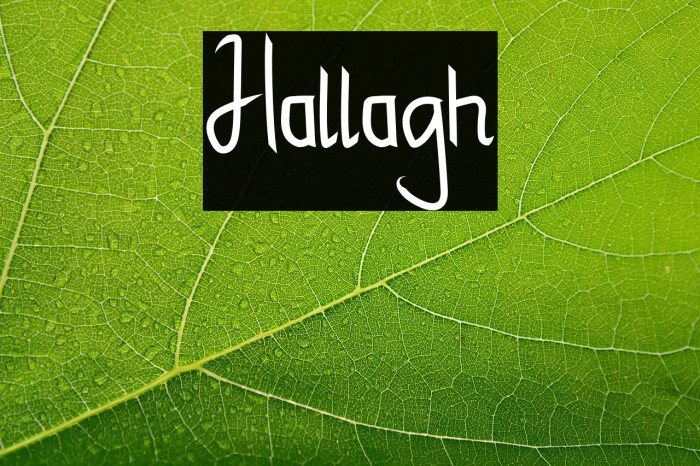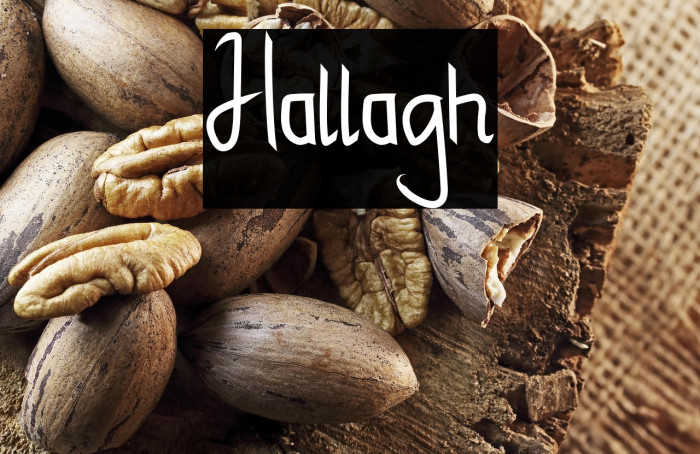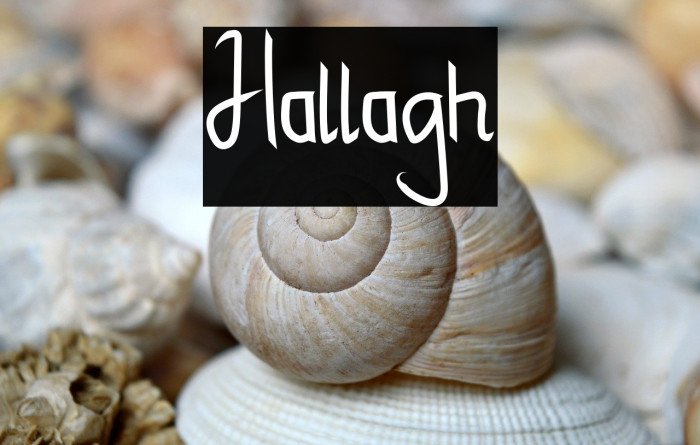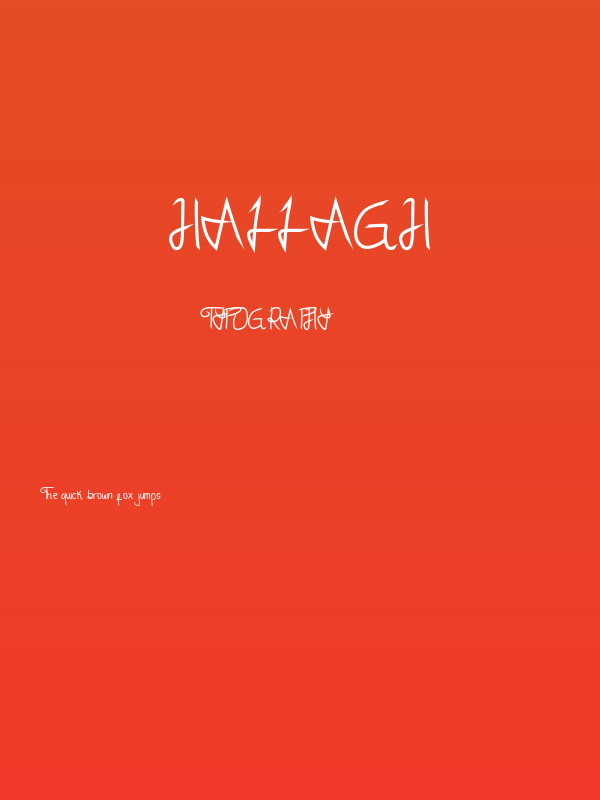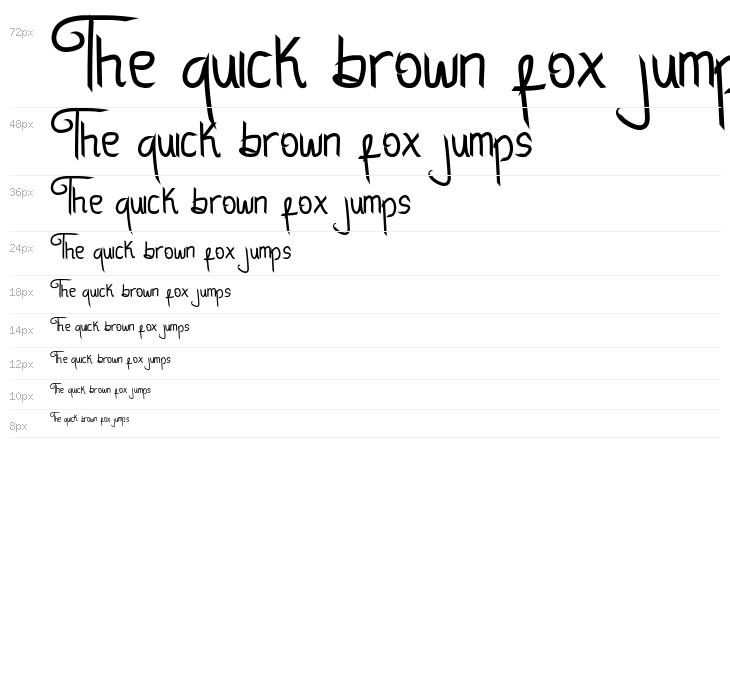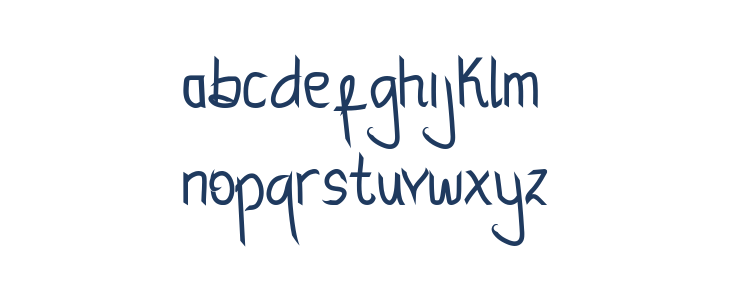
Hallagh Font
Hallagh Description
This font features a unique and artistic style, characterized by its flowing, interconnected strokes and dynamic curves. The uppercase letters exhibit a bold, angular design with sharp edges and a sense of movement, while the lowercase letters maintain a more fluid and rounded appearance. The numerals are consistent with the overall style, offering a playful yet sophisticated look. Special characters are creatively integrated, enhancing the font's versatility. This font's distinctiveness makes it suitable for projects that require a touch of creativity and flair.
| Overall Style | Artistic and Dynamic |
| Use Case | Headlines, Logos, Artistic Projects |
| Proposed Projects | Ideal for creative projects such as posters, album covers, branding, and artistic invitations. |